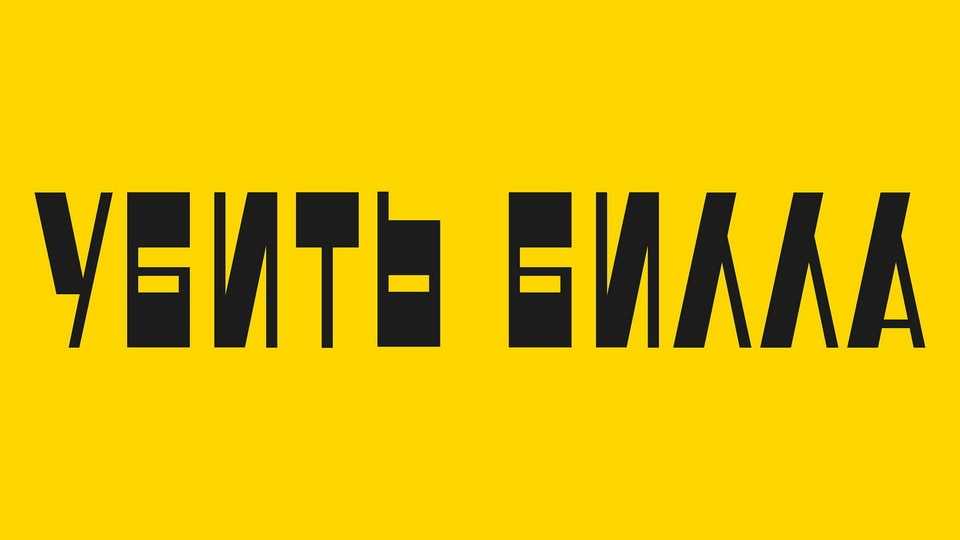
Download Font Fiction font, a bold, block display typeface inspired by the iconic style of Quentin Tarantino’s posters and films. The font is crafted with bold strokes and reversed contrast, capturing the gritty and bold aesthetic.
Designer: Kate Kvebliani